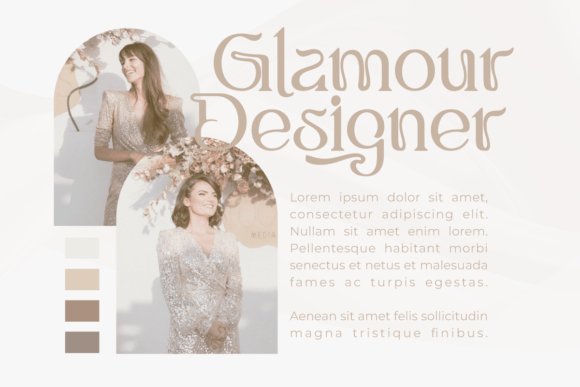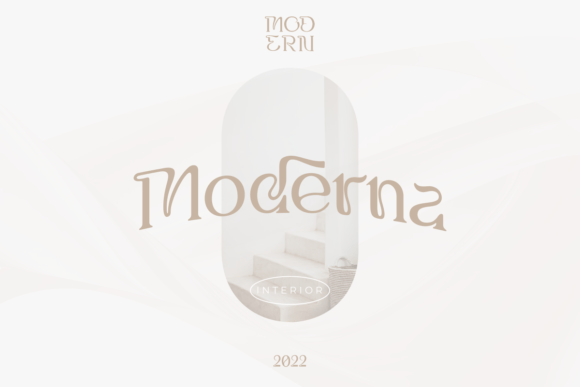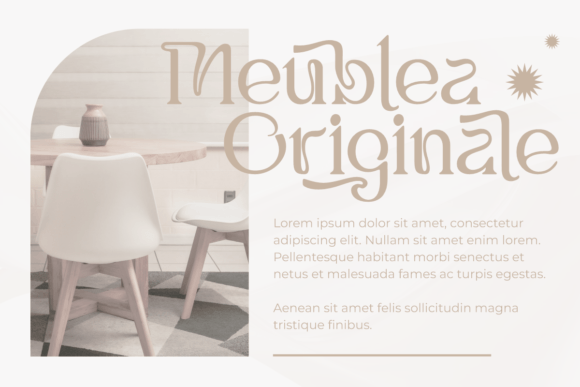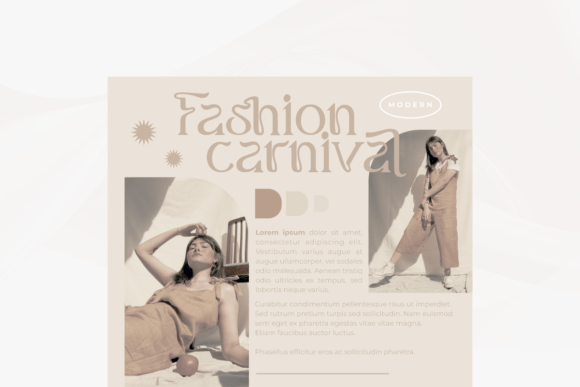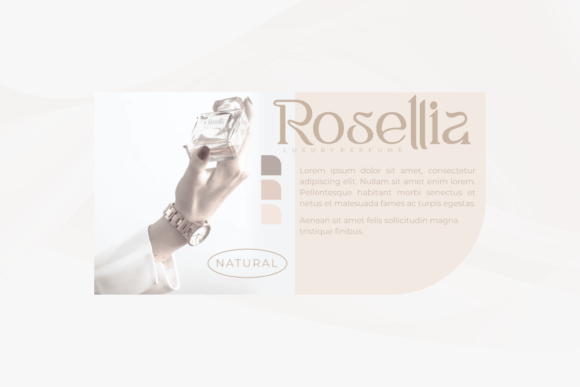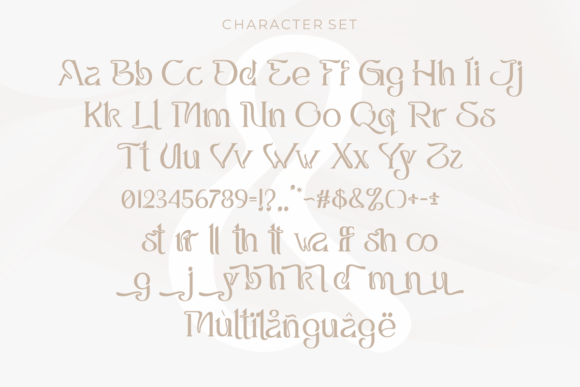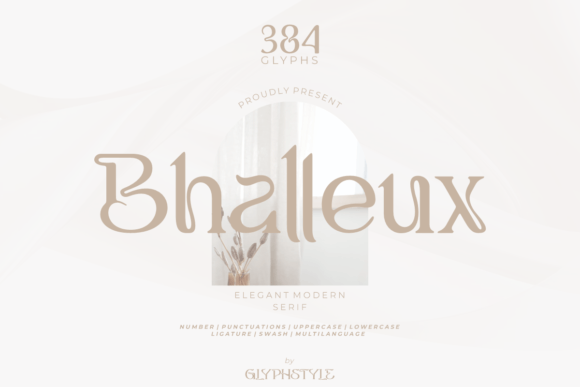
Bhalleux Font: Elevate Your Designs with Elegance and Sophistication
In the world of typography, a font can make or break a design. For designers and crafters looking for a touch of elegance and sophistication, Bhalleux font is an excellent choice. This modern serif font boasts unique curved shapes, ligatures, and swashes that will elevate your projects to the next level. In this article, we’ll dive into the features and benefits of Bhalleux font and explore its various applications.
What is Bhalleux Font?
Bhalleux is an elegant modern serif font designed to add a touch of sophistication to any project. Its unique combination of curved shapes and lines creates a distinctive look that’s both elegant and refined. The font features a range of ligatures and swashes, allowing designers to add a personal touch to their work.
Key Features of Bhalleux Font
- Unique and Elegant Curves: Bhalleux font boasts beautiful, flowing curves that give it a distinctive and refined look.
- Ligatures and Swashes: The font features a range of ligatures and swashes, allowing designers to add a personal touch to their work.
- Serif Font: Bhalleux is a serif font, making it perfect for projects that require a touch of elegance and sophistication.
- Modern Design: The font’s modern design ensures it remains fresh and relevant, even in today’s fast-paced design landscape.
Applications of Bhalleux Font
Bhalleux font is versatile and can be used in a wide range of projects, including:
- Branding Projects: Create a lasting impression with Bhalleux font, perfect for logos, business cards, and letterheads.
- Wedding Designs: Add a touch of elegance to wedding invitations, stationery, and decorations.
- Social Media Posts: Elevate your social media presence with Bhalleux font, suitable for posts, stories, and graphics.
- Advertisements: Create eye-catching ads with Bhalleux font, perfect for print, digital, or outdoor advertising.
- Product Packaging: Add a touch of sophistication to product packaging, labels, and tags.
- Photography: Use Bhalleux font for watermarks, photo captions, and more.
- Invitations and Stationery: Create beautiful invitations, stationery, and greeting cards with Bhalleux font.
Benefits of Using Bhalleux Font
By choosing Bhalleux font for your projects, you’ll enjoy several benefits, including:
- Elegance and Sophistication: Add a touch of refinement to your designs with Bhalleux font.
- Unique and Memorable: The font’s distinctive look ensures your designs stand out from the crowd.
- Versatility: Use Bhalleux font in a wide range of projects, from branding to wedding designs.
- Easy to Read: The font’s clear and legible design ensures your message is conveyed effectively.
Tips for Using Bhalleux Font
To get the most out of Bhalleux font, follow these tips:
- Experiment with Ligatures and Swashes: Take advantage of the font’s ligatures and swashes to add a personal touch to your designs.
- Pair with Other Fonts: Combine Bhalleux font with other fonts to create a unique and visually appealing design.
- Use for Headings and Titles: Bhalleux font is perfect for headings and titles, adding a touch of elegance to your designs.
In conclusion, Bhalleux font is an excellent choice for designers and crafters looking to add a touch of elegance and sophistication to their projects. With its unique curved shapes, ligatures, and swashes, this modern serif font is perfect for a wide range of applications. By choosing Bhalleux font, you’ll enjoy a versatile and memorable design that’s sure to elevate your work.